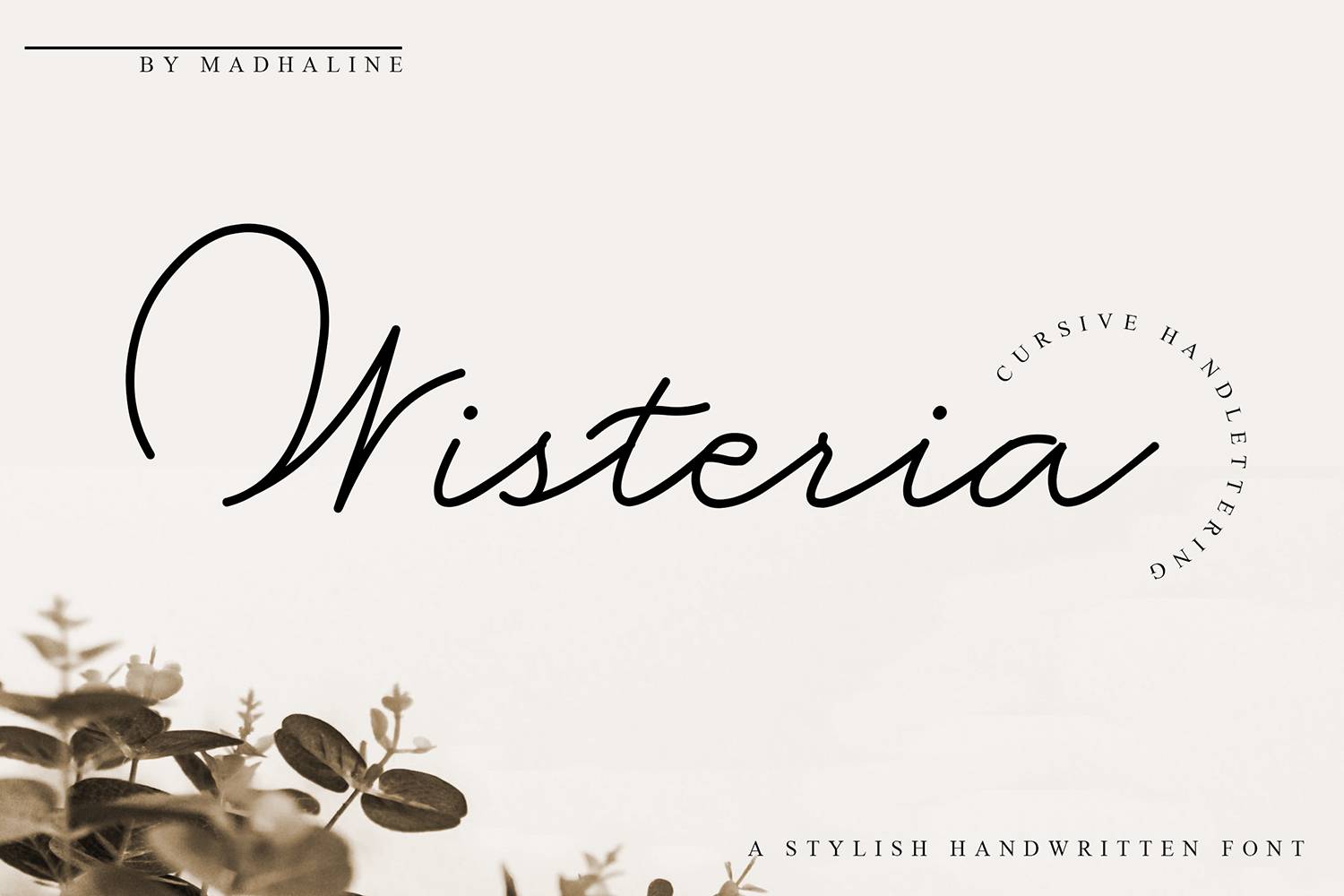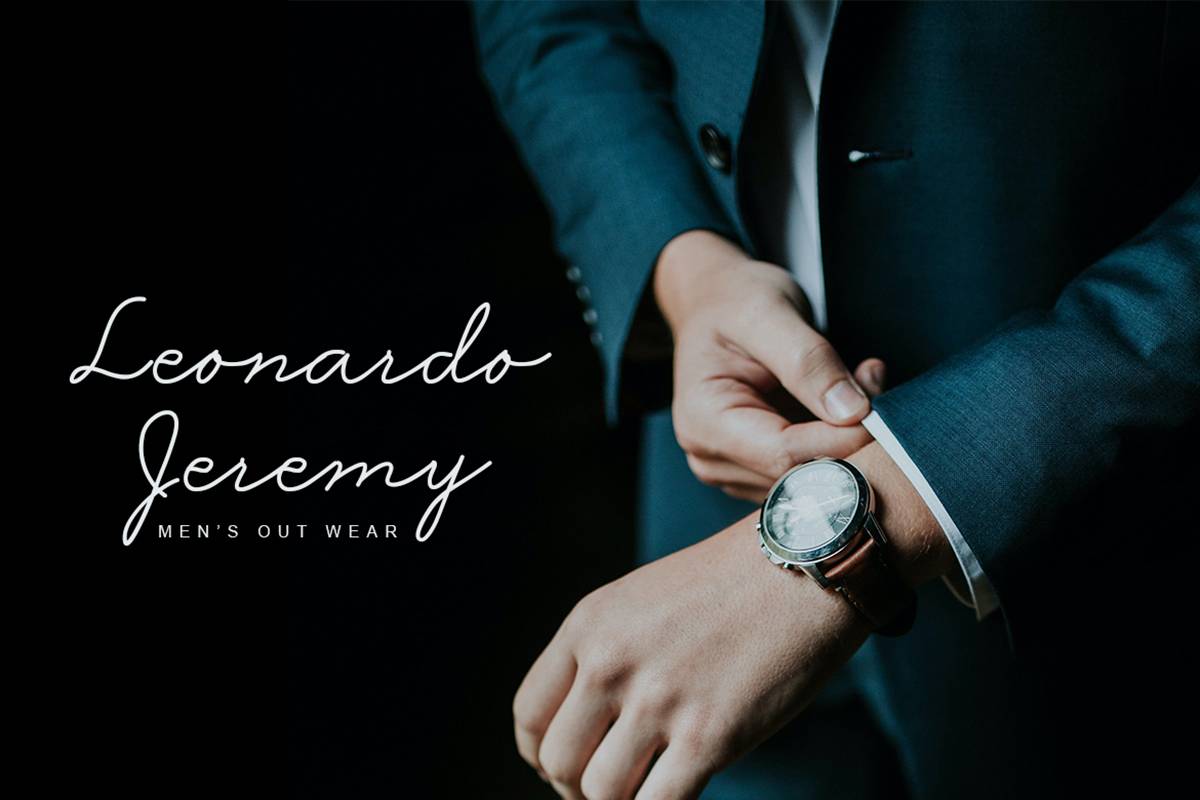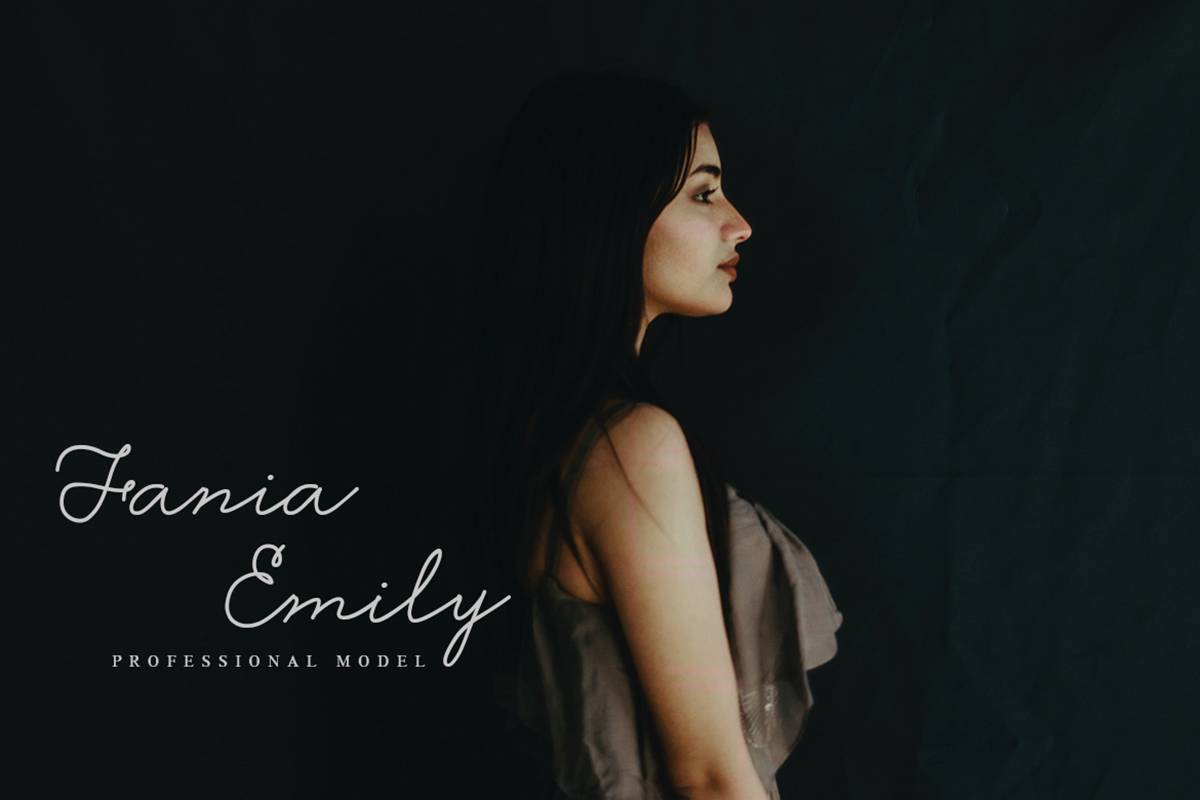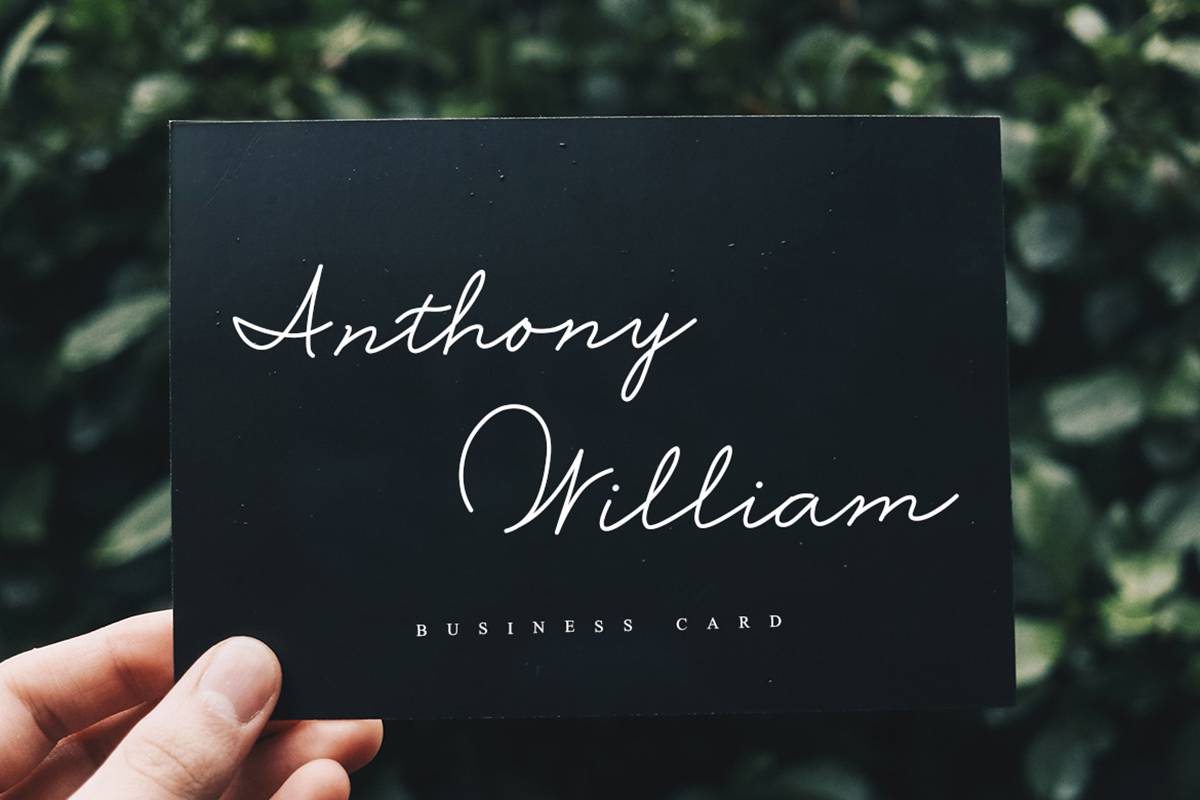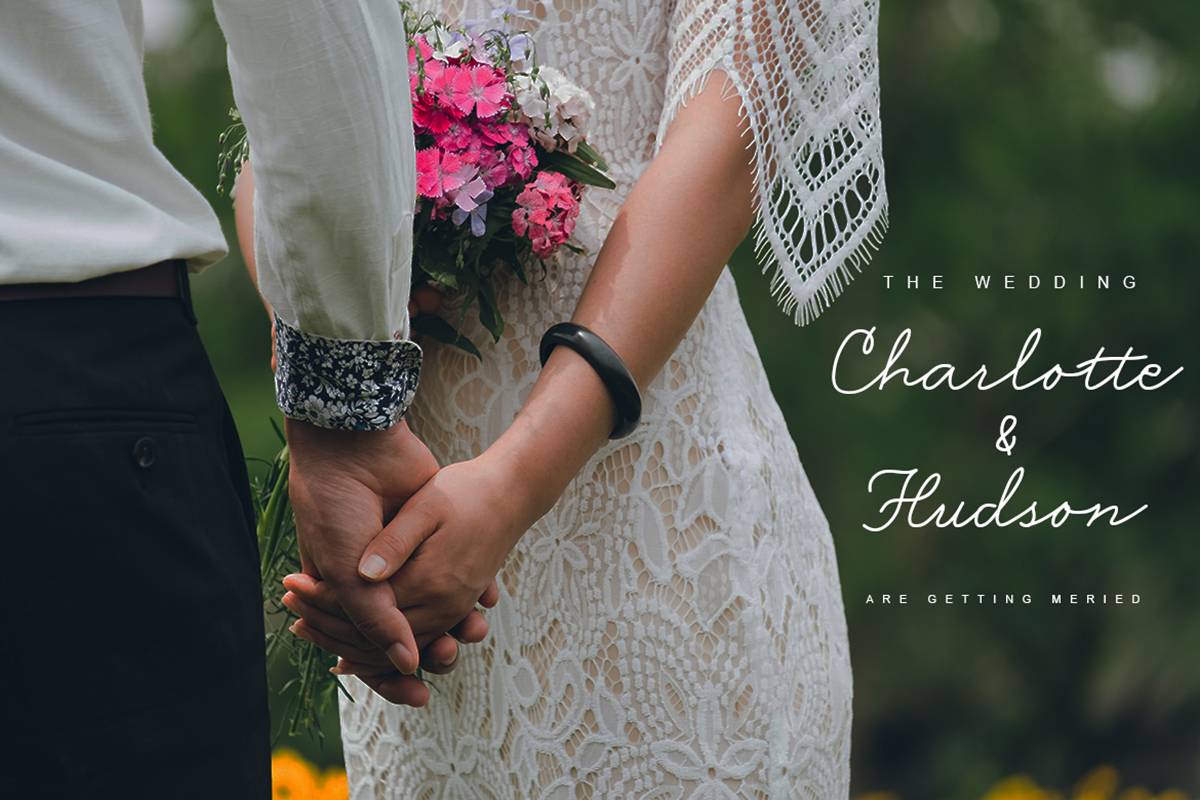
Wisteria is a delicate script font characterized by its elegant, flowing lines and refined, handwritten style. It conveys a graceful, sophisticated feel with light strokes and smooth curves, making it perfect for invitations, branding, and feminine design projects that require a touch of class and charm. This font works best in decorative or headline use where its intricate letterforms can shine.
Wisteria Font
About Wisteria Font
| Font family | Wisteria Font |
| Designer | Madhaline 2020 |